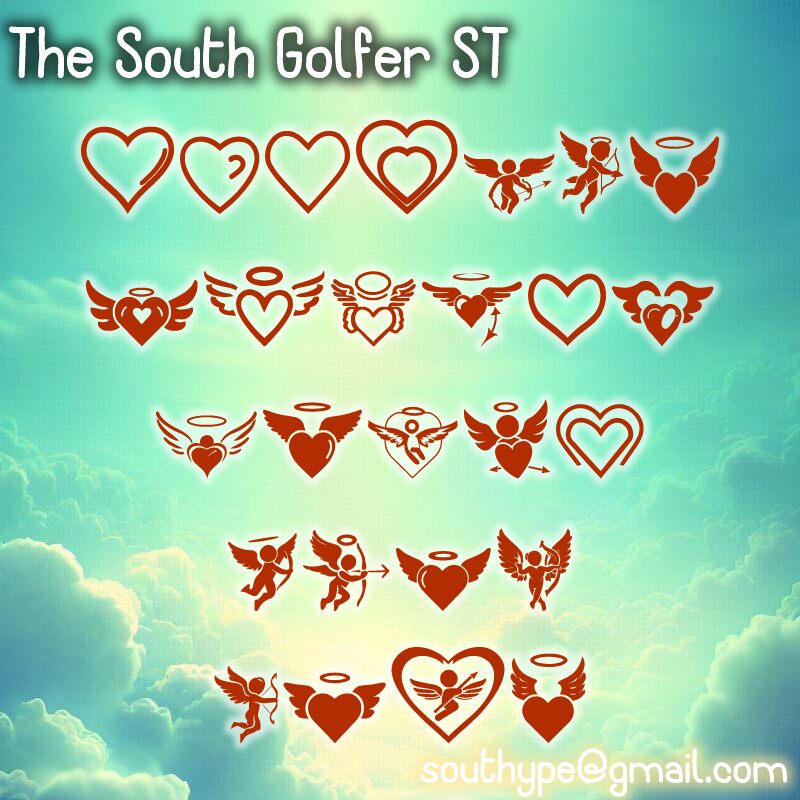
The Stupid Cupid ST font by Southype brings together a collection of romantic, thematic, and whimsical elements. This original design features decorative and ornamental motifs perfect for Valentine’s Day projects or any love-themed creations. This free dingbats font captures an illustrative essence, combining playful and charming visuals to elevate your designs.
Use The Stupid Cupid ST font for greeting cards, wedding invitations, scrapbooking, social media visuals, blog posts, event flyers, educational materials, handmade crafts packaging design. Enjoy crafting memorable work with this versatile collection that visually captures the spirit of romance.